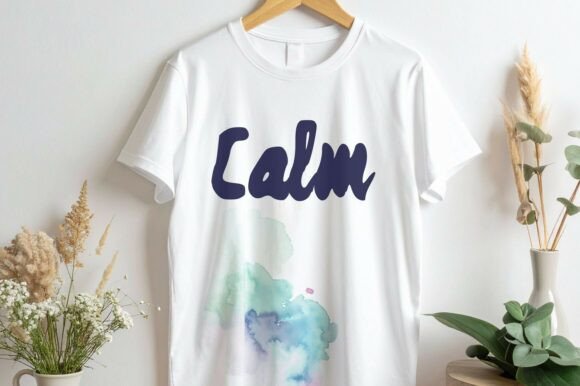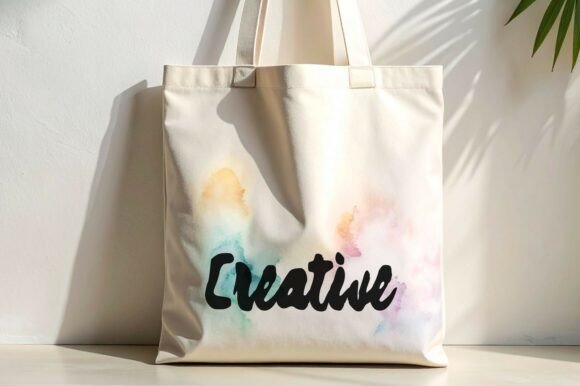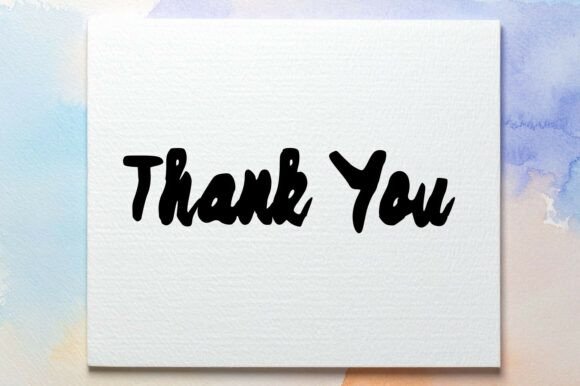
Bask in the Enchanting Charm of Capilan: A Lively Hand-Rendered Script Font
Picture the sweeping strokes of an artist’s brush gliding over a blank canvas, effortlessly marrying artistic impulse with a flowing ease. This is what Capilan, a lively hand-rendered script font, captures. With its confident execution and excellent legibility, Capilan injects pure artistic vitality into the world of typography. It’s a gem sculpted meticulously with swift precision yet wrought with human warmth.
The Artistry of Capilan
Capilan is more than just a font; it’s a testament to skillful artistry. The spontaneous interplay intertwined in its lettering and the slight unpredictability in its baseline lend a lively edge to its character. This unique charm makes Capilan the perfect match for designers and crafters on the hunt for a dash of creativity, a divergence from the ordinary, or a need for artistic gusto.
Unleash Your Creativity with Capilan
Capilan is a versatile font ideal for various design projects. Whether you’re carving out your unique brand identity, crafting engaging social media graphics, adding a personal touch to invitations, individualizing apparel, or working on any design project, Capilan is the perfect choice. Its flowing strokes and artistic vibe bring a touch of elegance and sophistication to any design.
Key Features of Capilan
- Excellent Legibility: Capilan’s confident execution ensures that your message is conveyed clearly and effectively.
- Lively and Artistic: The font’s hand-rendered strokes and spontaneous interplay give it a lively edge.
- Versatile: Suitable for a wide range of design projects, from branding to social media graphics.
- Unique Character: The slight unpredictability in its baseline adds a touch of personality to your designs.
Use Cases for Capilan
Capilan’s versatility makes it suitable for various design projects, including:
- Branding: Create a unique brand identity with Capilan’s artistic and elegant strokes.
- Social Media Graphics: Craft engaging social media graphics that stand out from the crowd.
- Invitations: Add a personal touch to your invitations with Capilan’s flowing strokes.
- Apparel: Individualize your apparel with Capilan’s unique and artistic font.
- Design Projects: Use Capilan to add a touch of elegance and sophistication to any design project.
Why Choose Capilan?
With so many fonts available, why choose Capilan? The answer lies in its unique blend of artistry and legibility. Capilan is not just a font; it’s a statement piece that can elevate your designs and make them stand out. Its versatility and flowing strokes make it perfect for a wide range of design projects.
In conclusion, Capilan is a lively hand-rendered script font that injects pure artistic vitality into the world of typography. With its confident execution, excellent legibility, and unique character, Capilan is the perfect choice for designers and crafters on the hunt for a dash of creativity. Whether you’re working on a branding project, social media graphics, or any design project, Capilan is sure to impress.